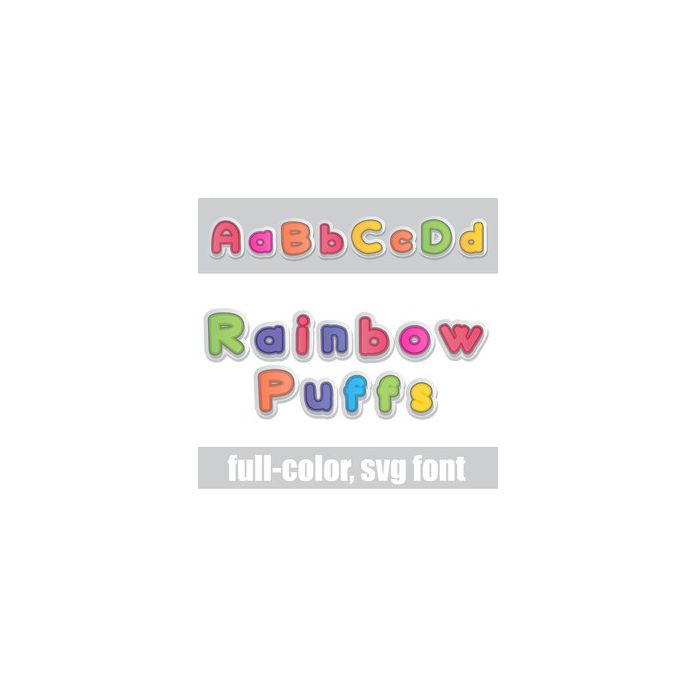
This full-color font features layered, sticker-like lettering in a rainbow of hues. There is an alt case w/ additional colors you can access through your system or Silhouette's glyph map.